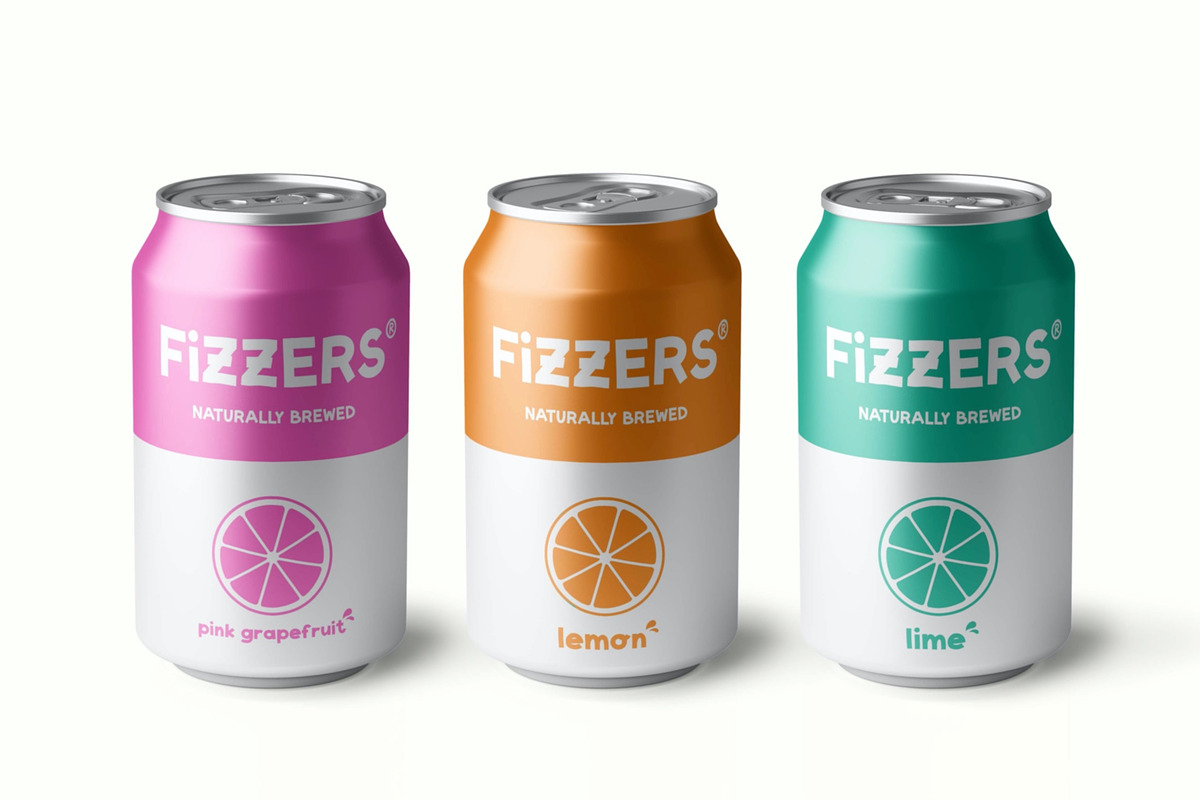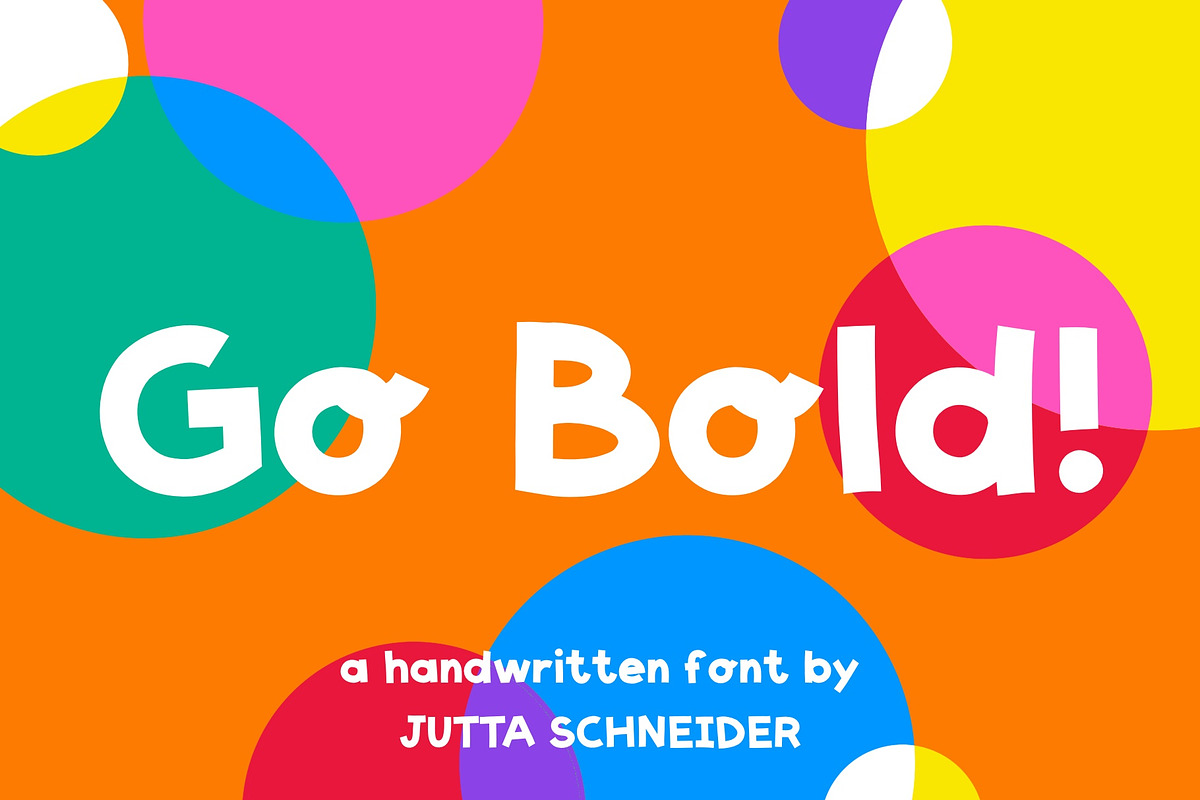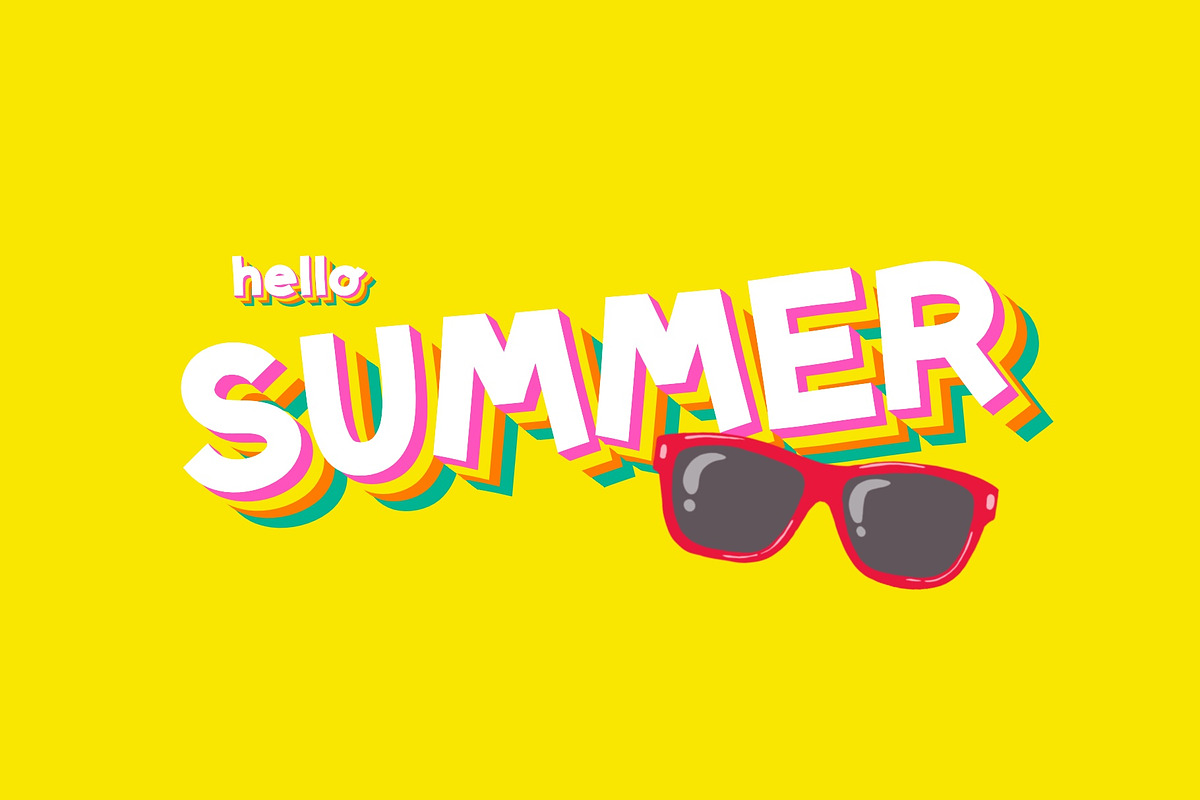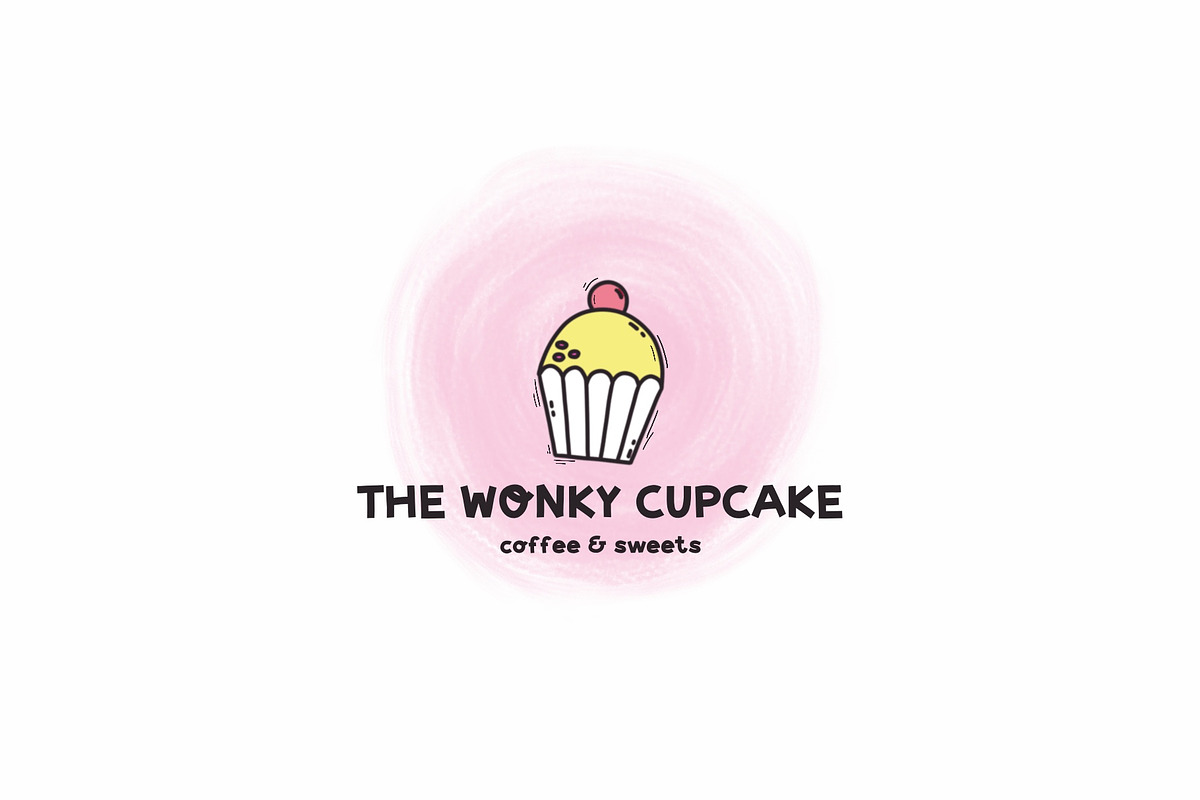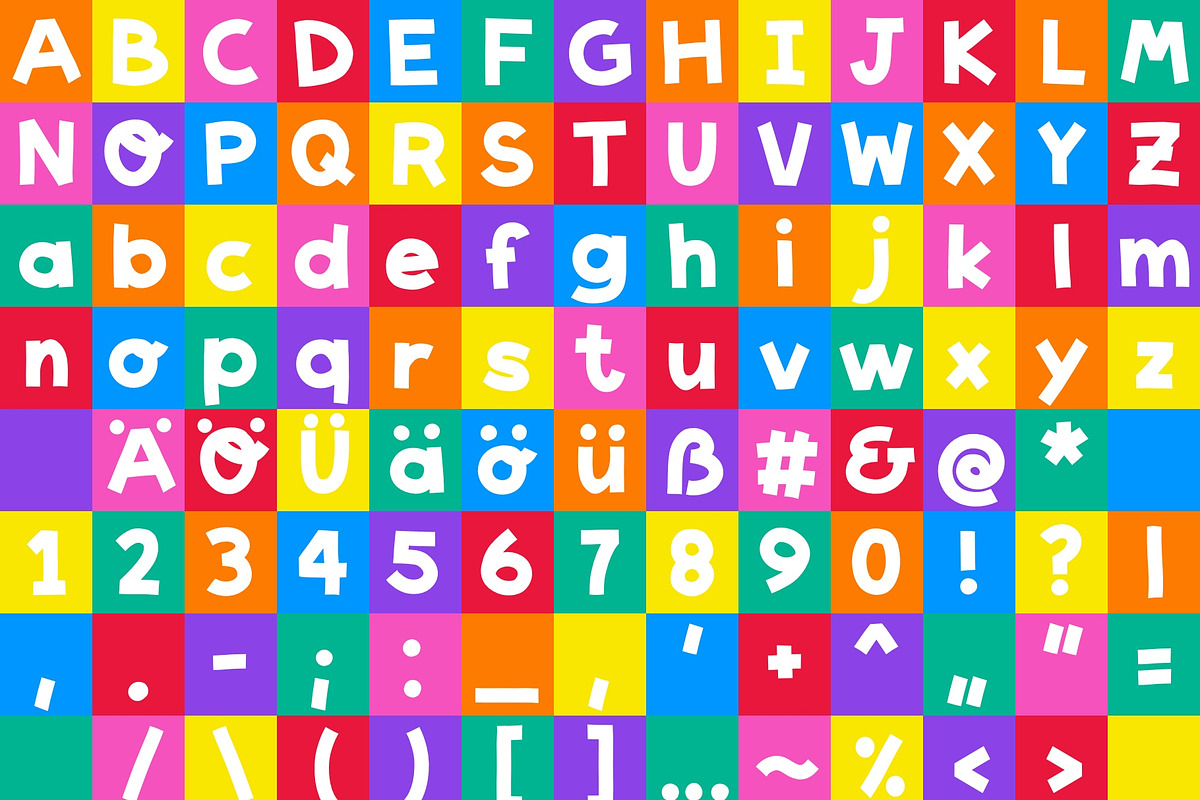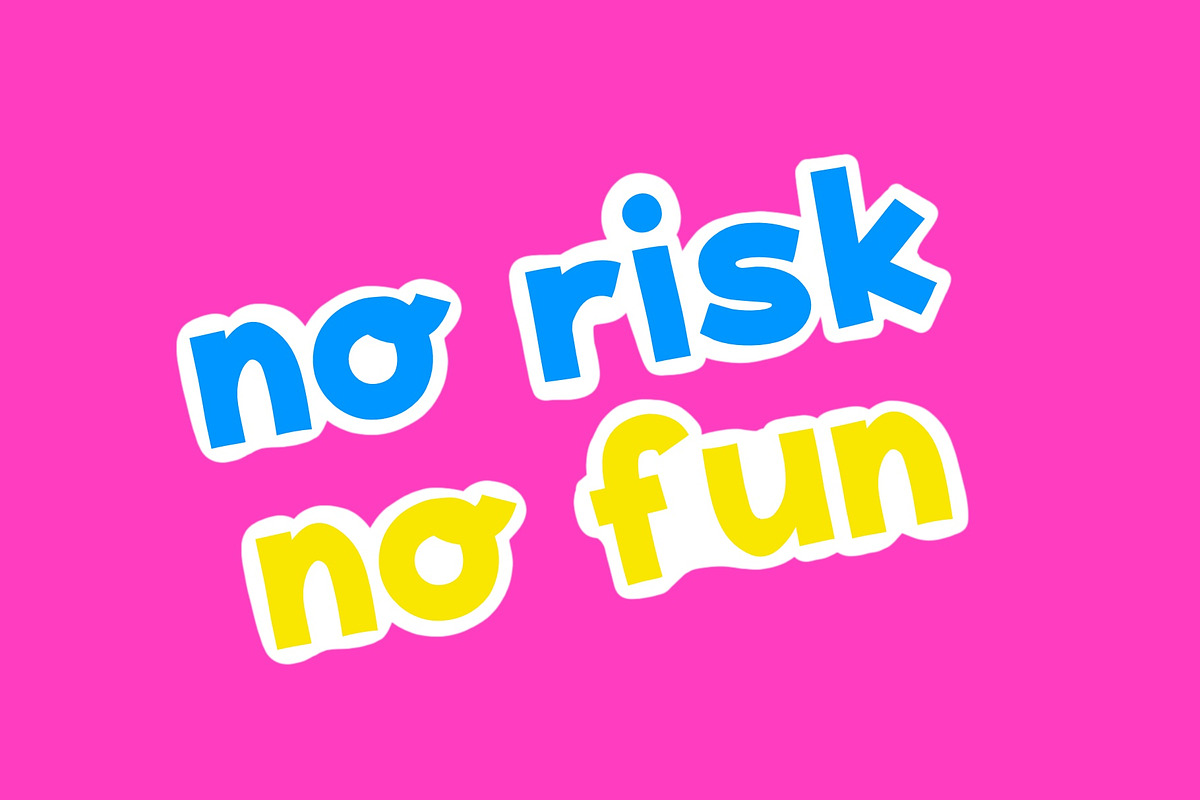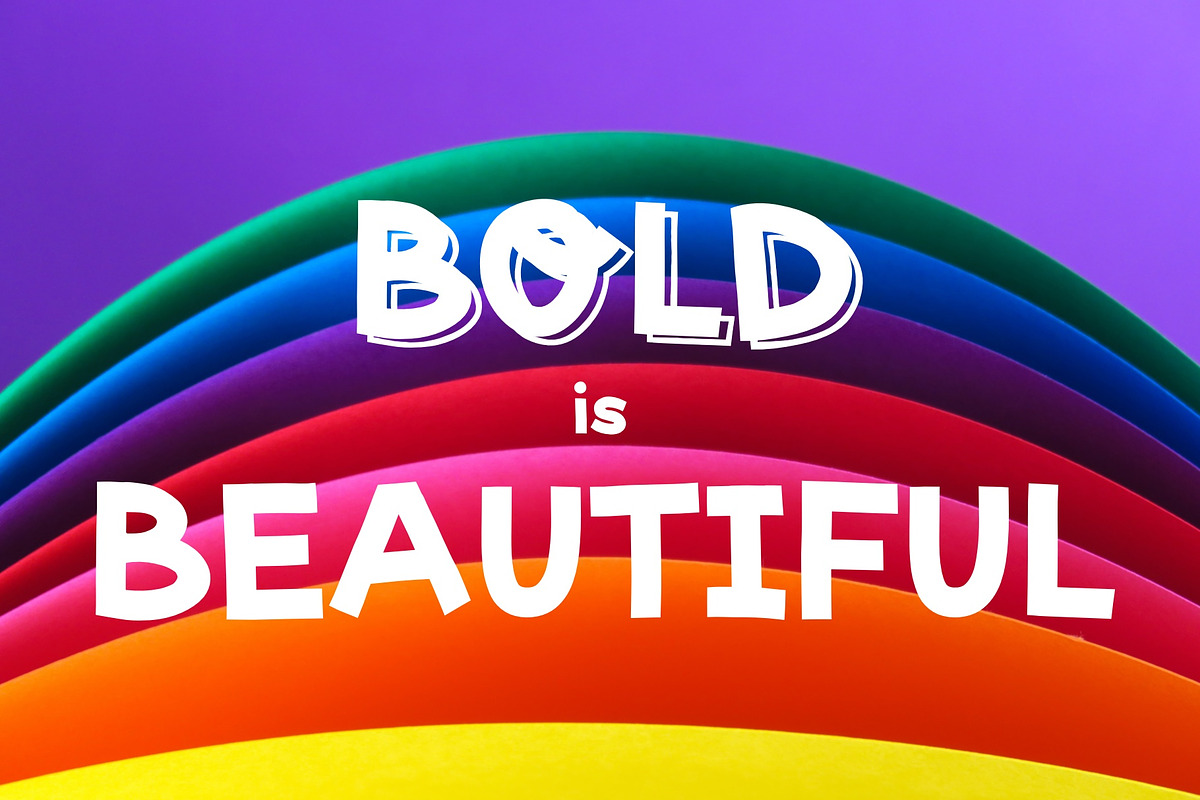
Go Bold!
‚Go Bold!‘ - a bold and wonky handwritten font
Every character has been carefully designed and handdrawn. Its bold wonkyness pops and brings the viewers attention to your piece. Create wonderful cards, quotes, posters or include it into illustrations, memes and such. It even works great as a logo type!
This is a versatile font that plays very well with its context. I included both English and German characters and punctuation, let me know if you wish for another set of characters in your language!